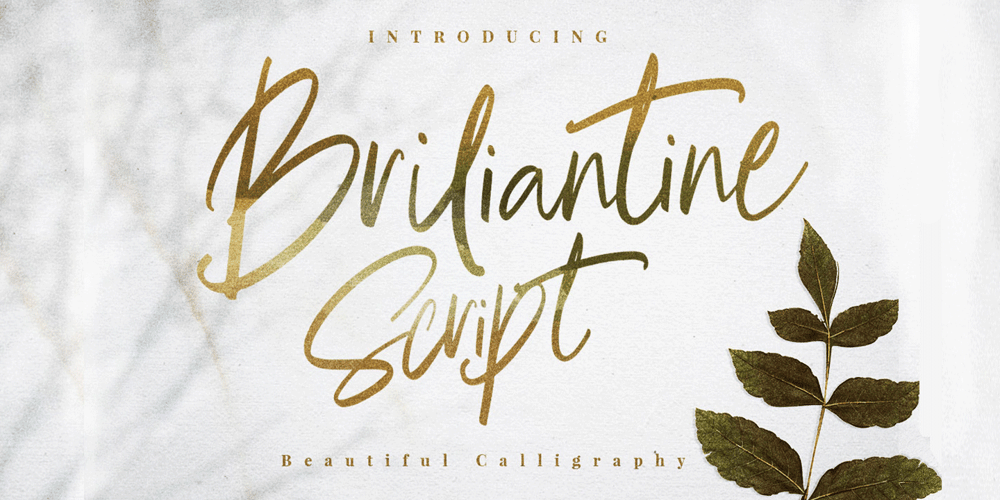
Brilliant Beautiful Script Font Family was designed by Putra Khan and published by Mindtype Co.. Brilliant Beautiful Script contains 3 styles and family package options. Briliantine Script is beautiful, fashionable and super-chilled new handwriting font script with some sexy stylish extras. Briliantine Script offers beautiful typographic harmony for a diversity of design projects, including logos & branding, wedding designs, social media posts, advertisements & product designs.